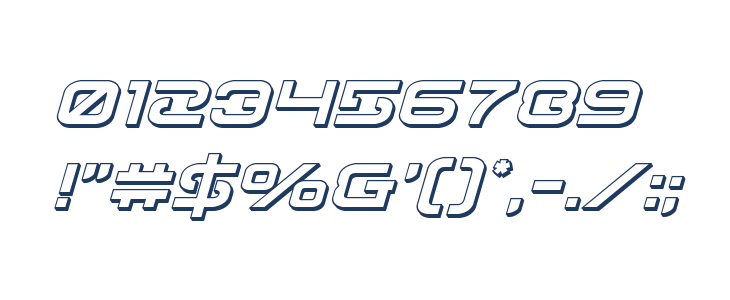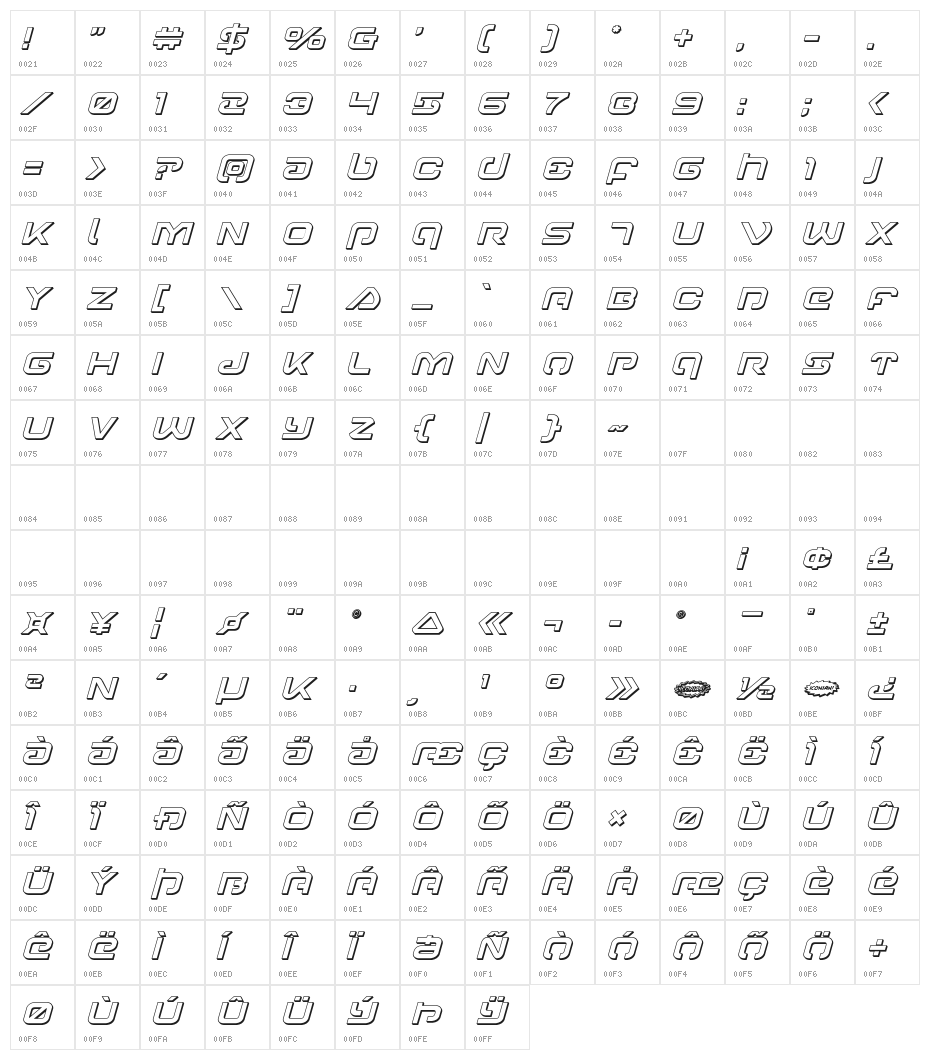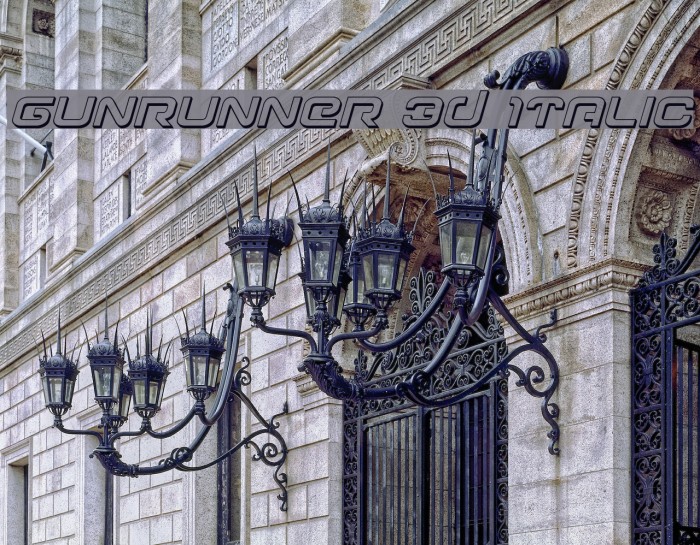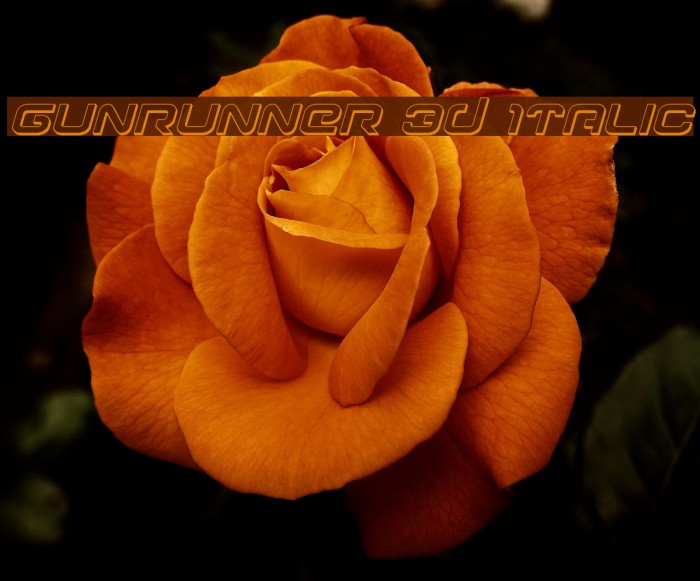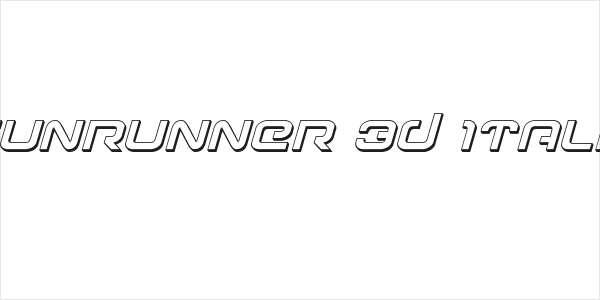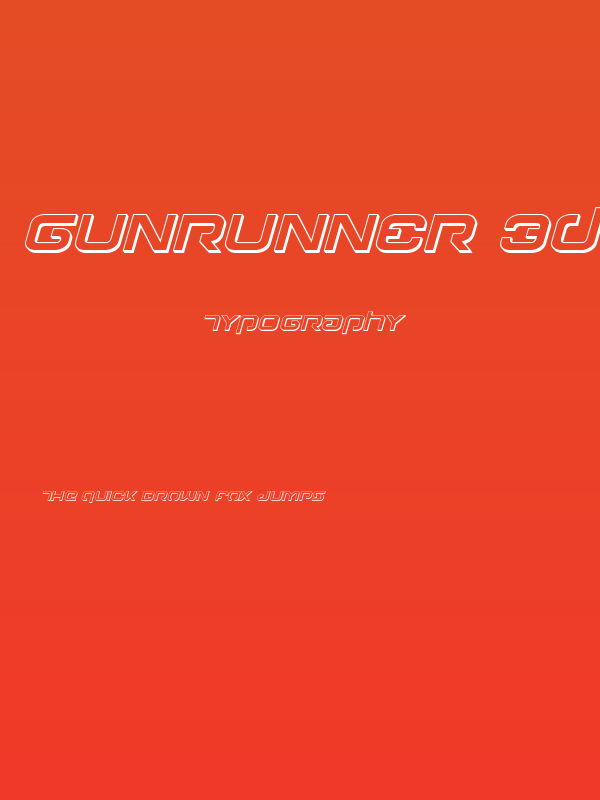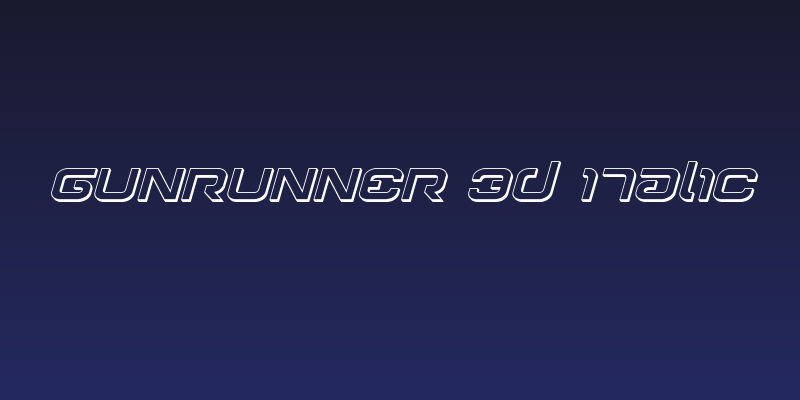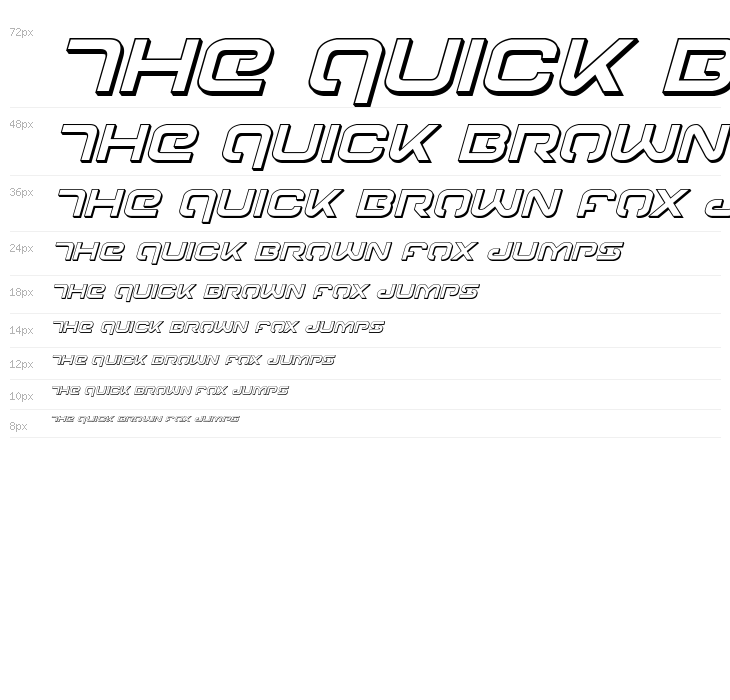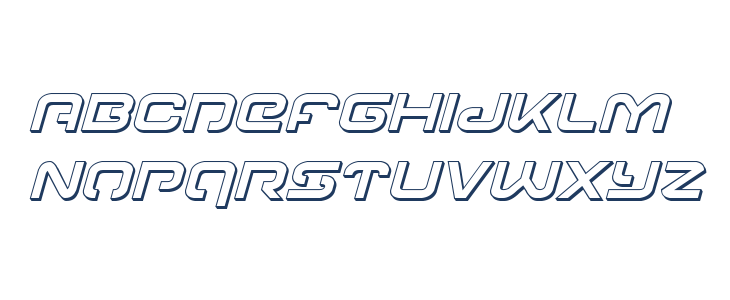
Gunrunner 3D Italic Font
Gunrunner 3D Italic Description
This font features a dynamic and futuristic design with a 3D effect, characterized by its italicized and bold appearance. The letters are outlined, giving them a dimensional look that suggests movement and modernity. The geometric shapes and angular lines create a sense of speed and technology, making it ideal for projects that require a contemporary and edgy feel. The font maintains a consistent weight throughout, with medium contrast in stroke thickness, adding to its bold presence. The character spacing is normal, ensuring readability while maintaining its distinctive style.